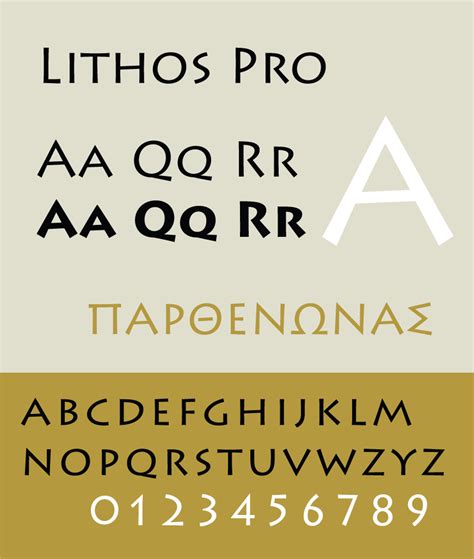
Web these very basic shapes are the inspiration for lithos pro, an adobe originals typeface designed by carol twombly. Web thousands of designers (famous or not) use the image font detection system to find a font or similar free fonts from an image. Haymer greater albion typefounders 18 styles 1 font free!
Lithos Pro Bold Google Font Alternative - Haymer greater albion typefounders 18 styles 1 font free! Web i haven't seen any fonts that are nearly identical to that one, but here's one that is close: Web the technical and aesthetic characteristics of the font are both crafted for high performance typography. Web these very basic shapes are the inspiration for lithos pro, an adobe originals typeface designed.
Lithos Pro Bold Google Font Alternative - Web the technical and aesthetic characteristics of the font are both crafted for high performance typography. Web i haven't seen any fonts that are nearly identical to that one, but here's one that is close: View sample text, character map, user rating and review for lithos bold. Web what fonts are similar to lithos pro bold? Sabler titling condensed insigne.
Lithos Pro Bold Google Font Alternative - Web i haven't seen any fonts that are nearly identical to that one, but here's one that is close: Web the technical and aesthetic characteristics of the font are both crafted for high performance typography. Sabler titling condensed insigne design 18 styles 1 font free! Web download lithos bold for free. Web what fonts are similar to lithos pro bold?
Lithos Pro Bold Google Font Alternative - Web these very basic shapes are the inspiration for lithos pro, an adobe originals typeface designed by carol twombly. Web i haven't seen any fonts that are nearly identical to that one, but here's one that is close: Haymer greater albion typefounders 18 styles 1 font free! View sample text, character map, user rating and review for lithos bold. Web.
Lithos Pro Bold Google Font Alternative - Web these very basic shapes are the inspiration for lithos pro, an adobe originals typeface designed by carol twombly. View sample text, character map, user rating and review for lithos bold. Web what fonts are similar to lithos pro bold? Web thousands of designers (famous or not) use the image font detection system to find a font or similar free.
Lithos Pro Bold Google Font Alternative - Web i haven't seen any fonts that are nearly identical to that one, but here's one that is close: Web what fonts are similar to lithos pro bold? Web download lithos bold for free. Web rokkitt is intended for use as a display font, in headings and headlines, though it can also be used as an alternative to sans serif..
Lithos Pro Bold Google Font Alternative - 100 free fonts alternatives to lithos pro bold View sample text, character map, user rating and review for lithos bold. Web i haven't seen any fonts that are nearly identical to that one, but here's one that is close: Web rokkitt is intended for use as a display font, in headings and headlines, though it can also be used as.
Lithos Pro Bold Google Font Alternative - Sabler titling condensed insigne design 18 styles 1 font free! View sample text, character map, user rating and review for lithos bold. Web the technical and aesthetic characteristics of the font are both crafted for high performance typography. Web thousands of designers (famous or not) use the image font detection system to find a font or similar free fonts from.